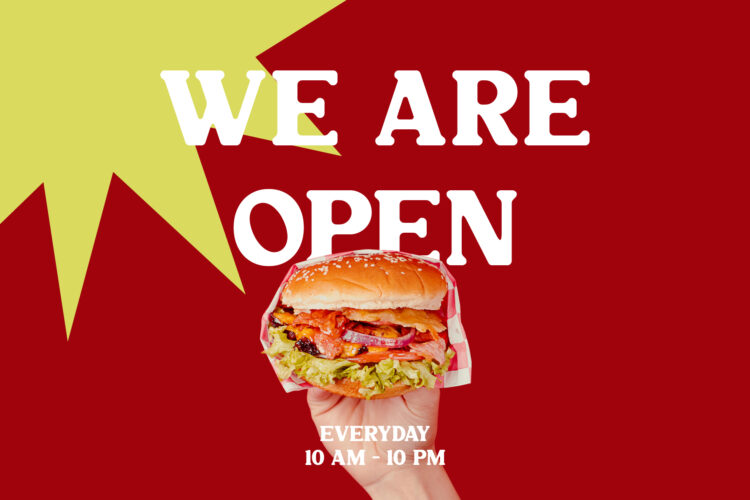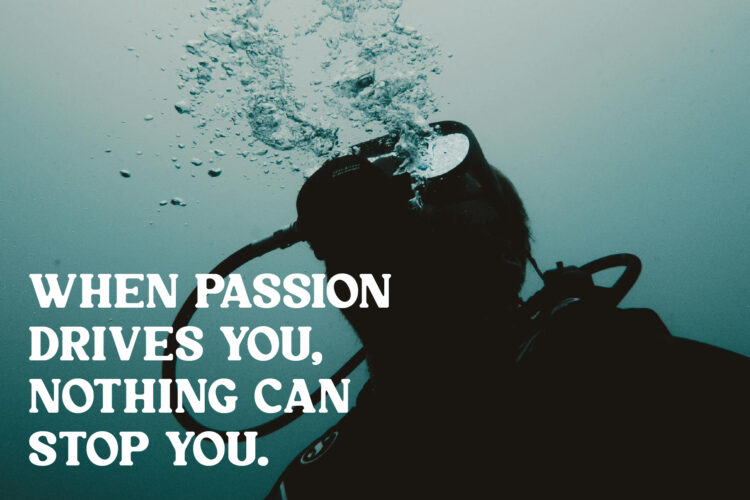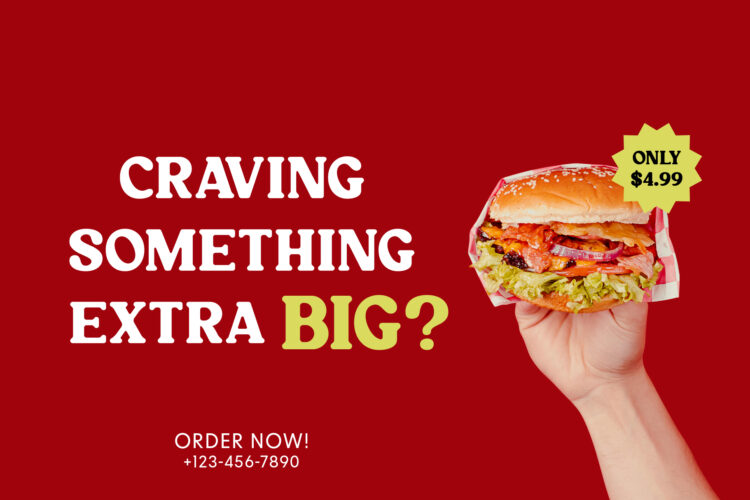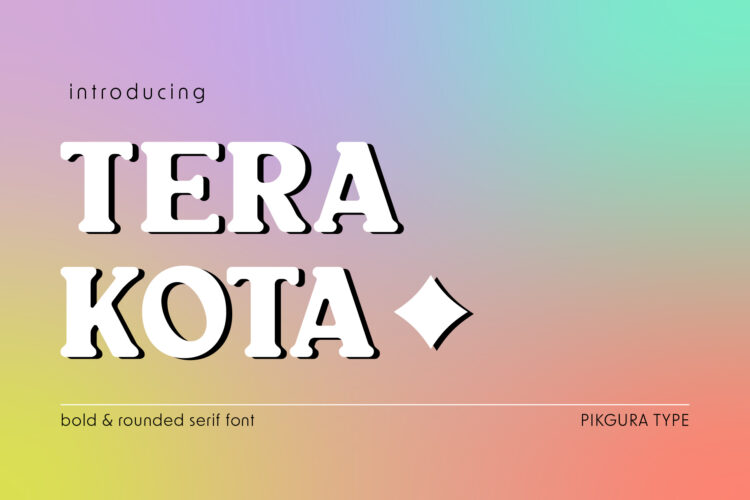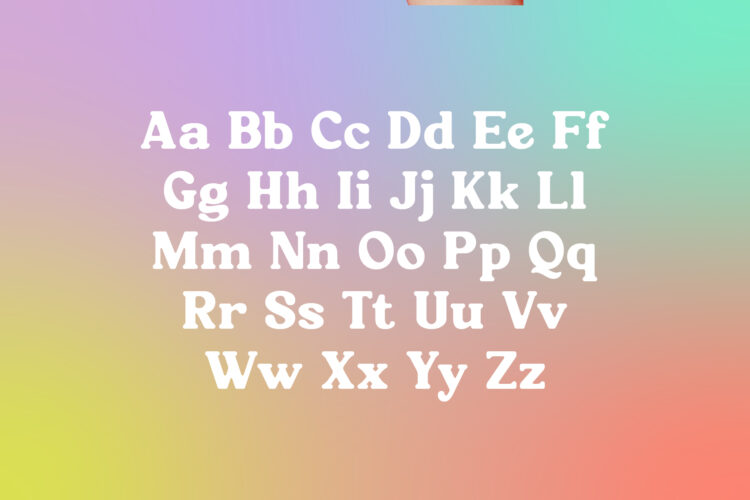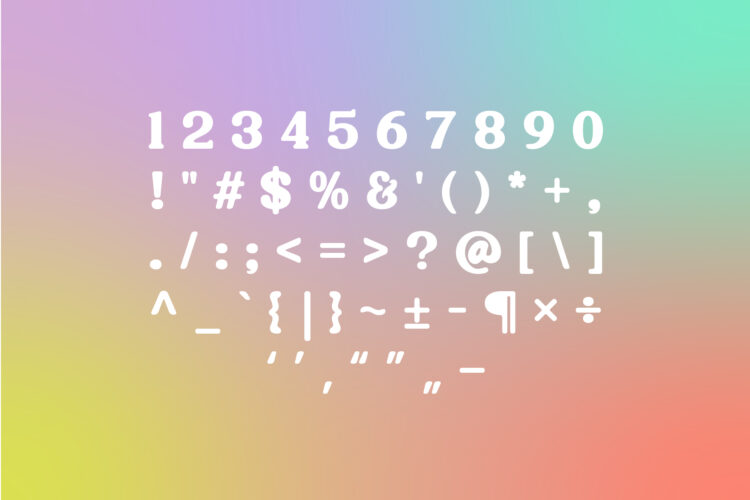
Introducing Terakota, a bold and rounded serif font that exudes timeless elegance. Handcrafted with care, Terakota is perfect for greeting cards, logos, posters, thumbnails, advertisements, and more. Its thick, rounded lines and smooth curves create a distinctive and inviting look, ensuring your designs stand out with sophistication and charm.
Terakota includes a full set of uppercase and lowercase letters, numbers, punctuation, and an italic version, providing versatility for any design project. Available in TTF, OTF, and WOFF formats, Terakota is compatible with various design software, making it easy to integrate into your creative workflow. Elevate your designs with the classic beauty of Terakota.